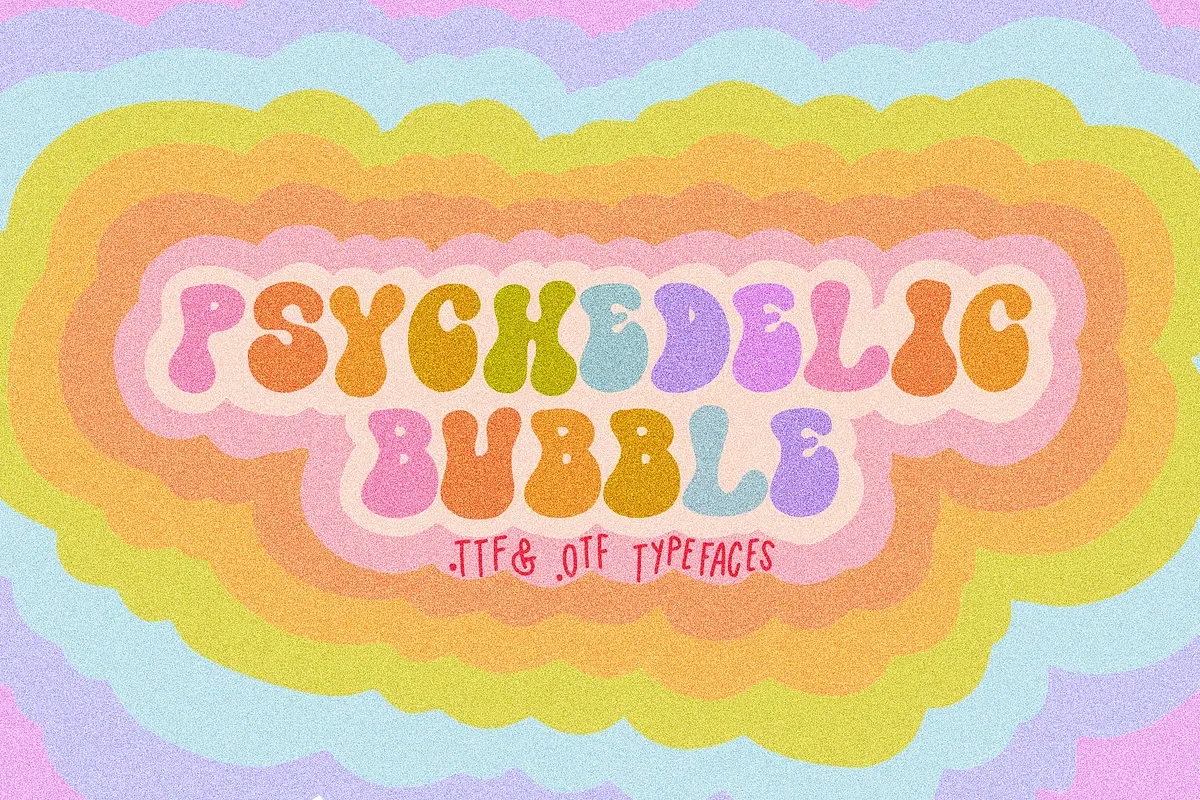
Psychedelic Bubble 70s Font Free Download is a bold and groovy typeface inspired by the vibrant, psychedelic designs of the 1970s. With its rounded, bubbly letters and retro charm, this font is perfect for creating bold headlines, event posters, music covers, logos, and any project that needs a fun, nostalgic touch.
The playful and colorful aesthetic of Psychedelic Bubble adds instant energy and personality to your designs, making it ideal for projects that celebrate the spirit of the 70s, from vintage posters to modern branding with a retro flair.